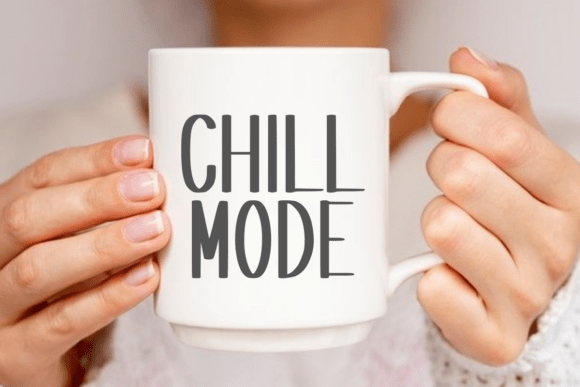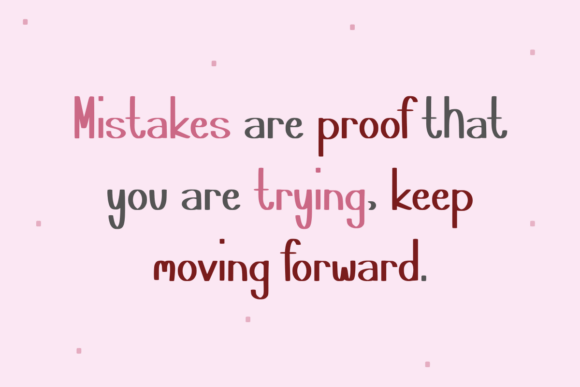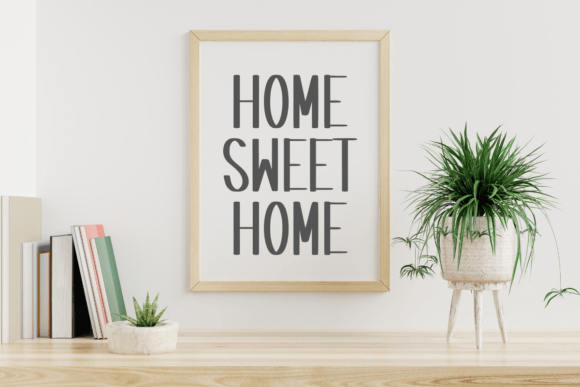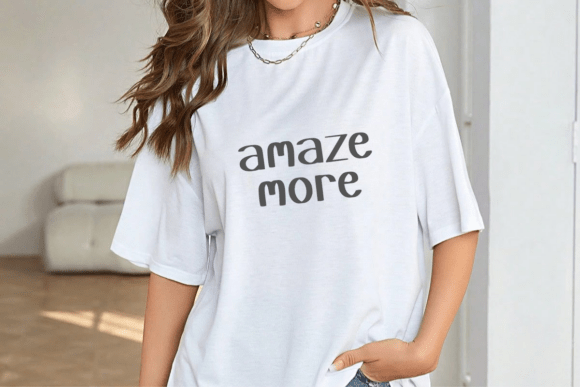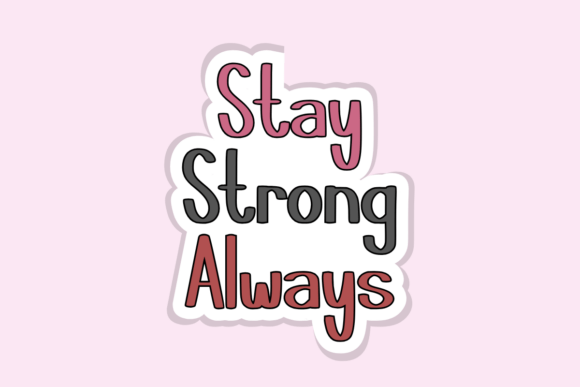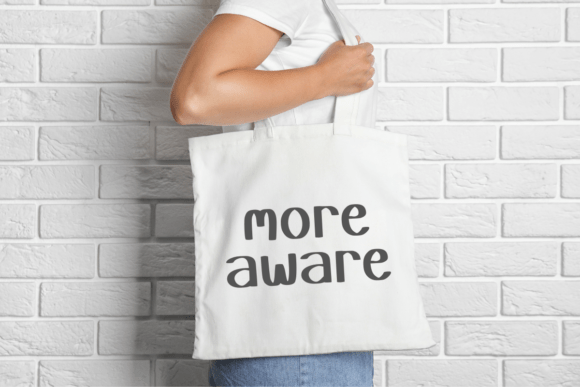
Introduction to Personal Planning Font
As you sit in your cozy craft room, surrounded by half-finished projects and scattered supplies, you stumble upon a spark of inspiration. The thought of creating a personalized planner or designing a set of adorable stickers gets you excited, and you start brainstorming ideas. This is the moment when the right design resource can make all the difference. Enter the Personal Planning Font, a delightful sans serif handwriting font that brings a touch of warmth and personality to your creative projects.
This high-quality font is designed to make your crafting experience seamless, with smooth curves and simple strokes that make it perfect for cutting using Cricut and Silhouette. Whether you’re a seasoned designer or a crafting mom looking for a free download to add to your collection, the Personal Planning Font is an invaluable resource for any creative project.
Key Features of Personal Planning Font
- High-quality design: Personal Planning Font is crafted with attention to detail, ensuring a professional and polished look for your creative projects.
- Unique characteristics: Personal Planning Font features a modern and clean design, making it perfect for creating engaging and effective visual content.
Honest Review: Personal Planning Font
I recently stumbled upon the Personal Planning Font, and I’m excited to share my thoughts on this design resource. As a designer, I’m always on the lookout for high-quality fonts that can elevate my creative projects. The Personal Planning Font delivers.
- ✨ High-quality typography: The font is crisp, clean, and well-designed, making it perfect for planning and organization projects.
While the Personal Planning Font is a solid design resource, there are a few limitations to keep in mind:
- ⚠️ Limited character set: The font only includes a limited set of characters, which may not be suitable for long-form text projects.
- ⚠️ No bold or italic styles: The font only includes regular weight, which may limit its use in certain design scenarios.
Overall, I’m impressed with the Personal Planning Font. It’s a great addition to any designer’s toolkit, especially for creative projects that require a clean and simple aesthetic. While it has some limitations, the font’s high quality and customizable nature make it a valuable resource for designers of all levels.
How to Use Personal Planning Font
Introduction to Personal Planning Font
The Personal Planning Font is a high-quality design resource that can help you take your creative projects to the next level. This versatile font is perfect for creating visually appealing and organized content, making it an ideal design element for your personal and professional projects.
To get the most out of the Personal Planning Font, try experimenting with different font sizes, colors, and combinations to create a unique and eye-catching design. You can also use it in conjunction with other design elements to create a cohesive and visually appealing look.
The Personal Planning Font is perfect for a variety of use cases, including:
- Creating organized and visually appealing to-do lists and planners.
- Designing professional-looking presentations and documents.